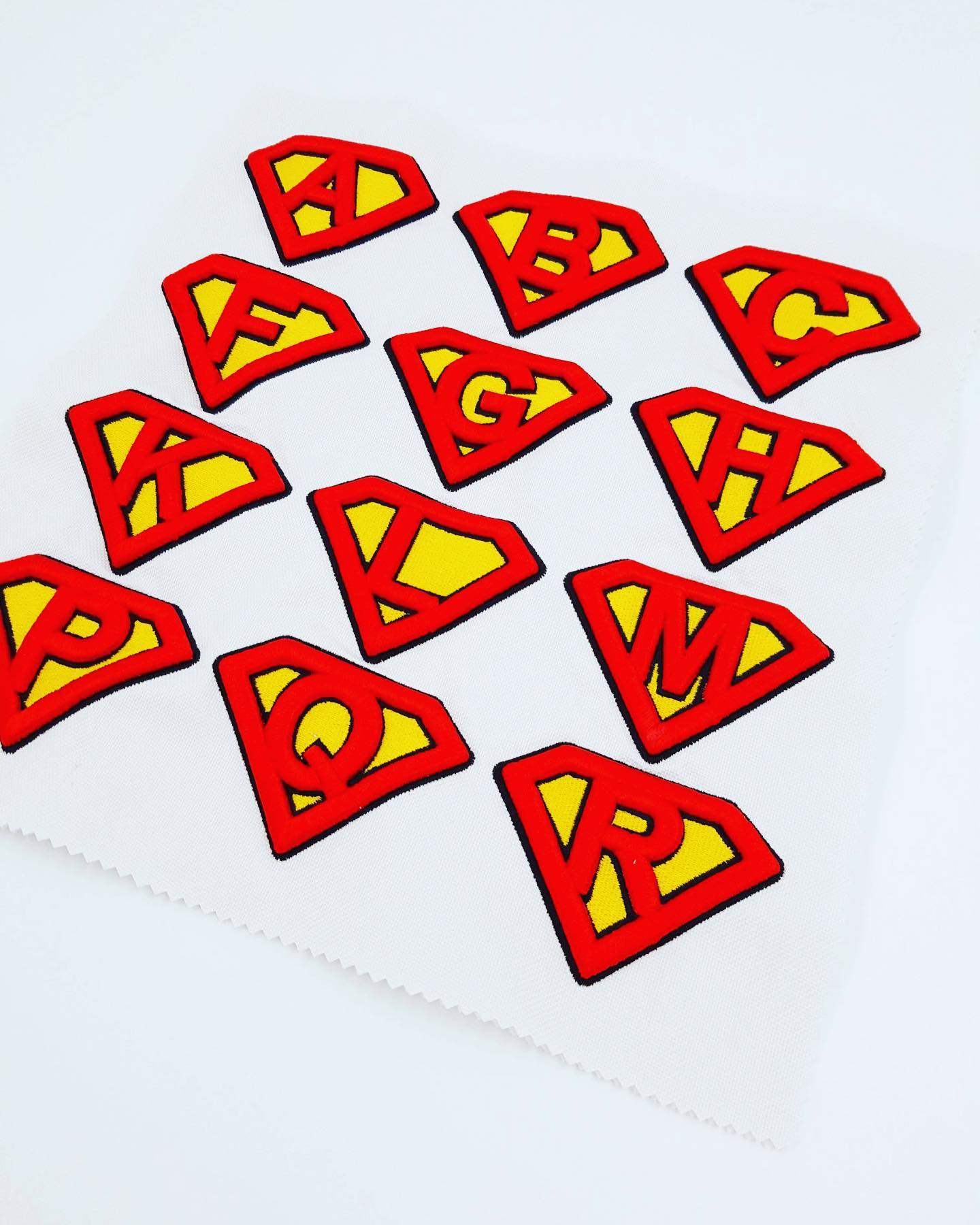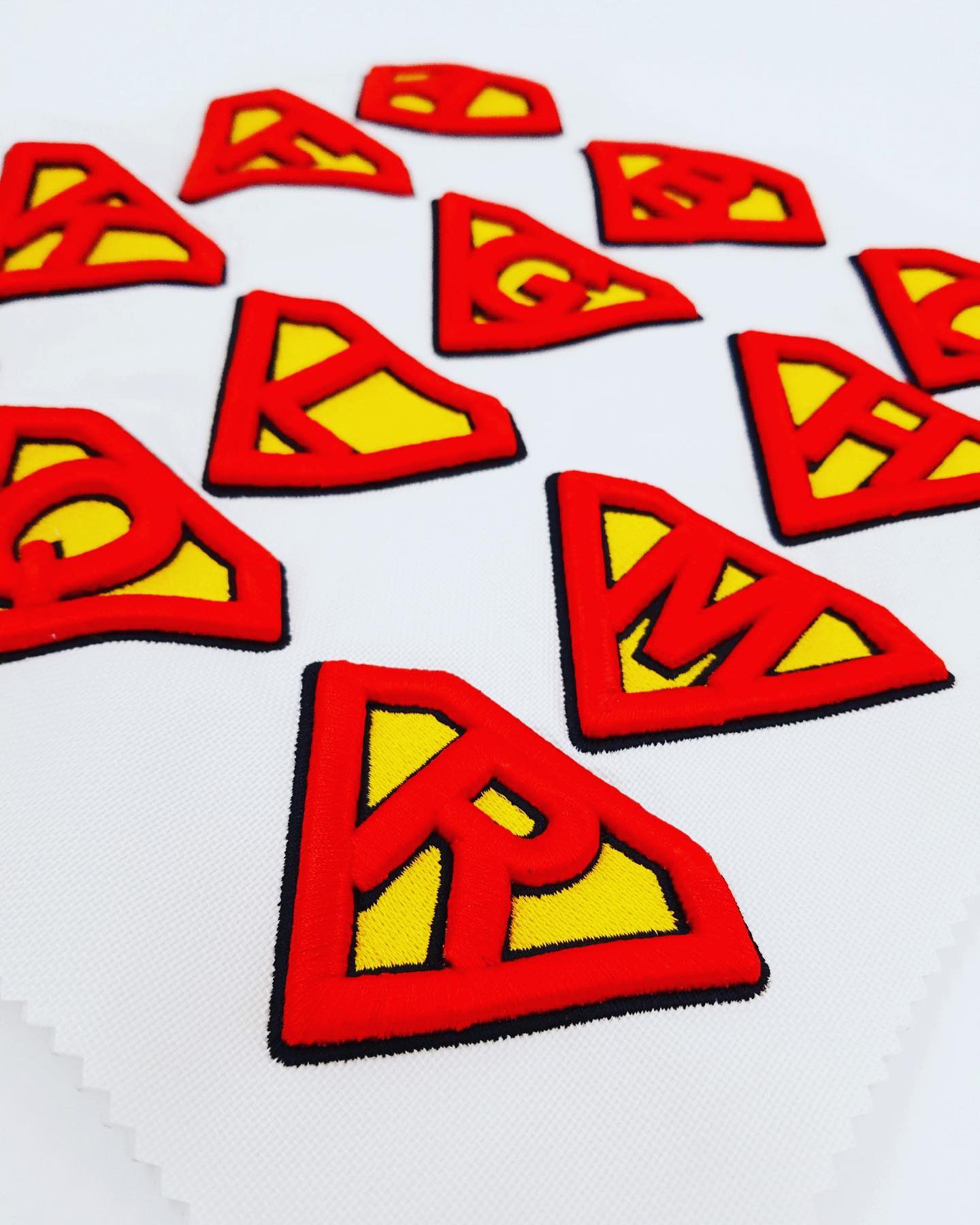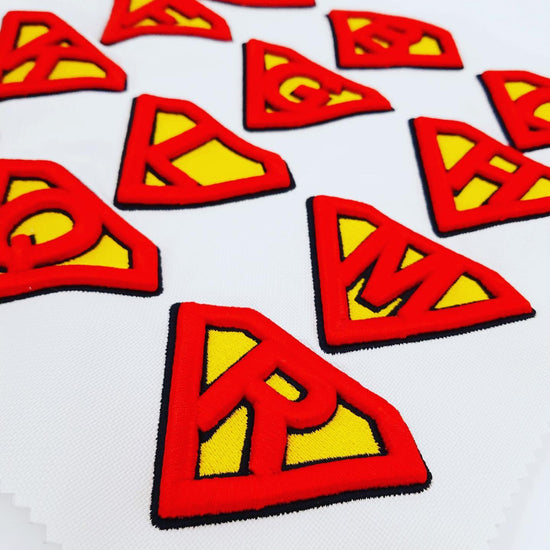
Superhero 3D Puff Monogram Font
Unleash super style with these Superhero 3D Puff Monogram Patches! Each patch features a bold letter in vibrant red and yellow, inspired by classic superhero emblems and brought to life with raised, tactile embroidery.
Perfect for customizing hats, —these patches instantly add a heroic pop and personal flair. Expertly embroidered in Dubai for lasting quality and fun.
Personalize your look—add your initial and feel like a hero with every stitch!